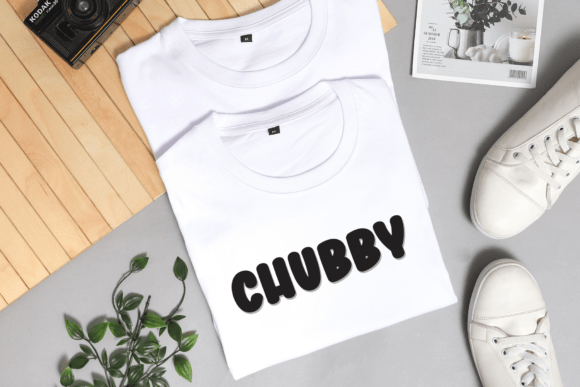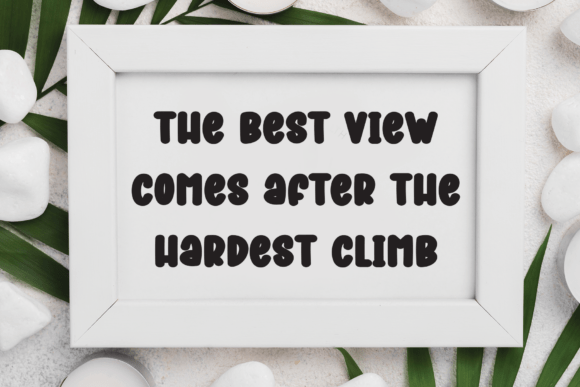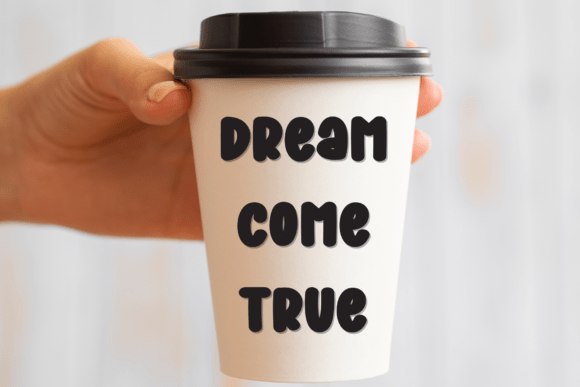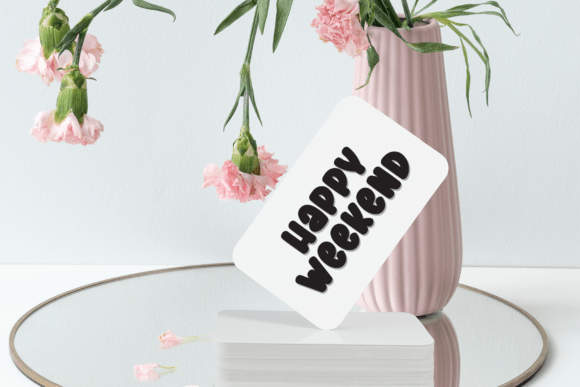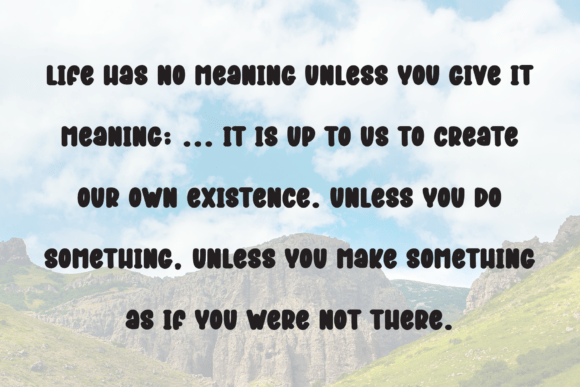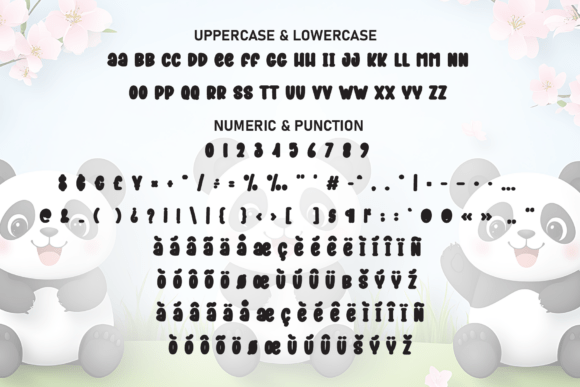
Where Cuteness Meets Creativity: Unveiling the Baby Panda Font
Who hasn’t been captivated by a playful illustration or a charming font at some point in their creative journey? For designers, the perfect font can transport a brand or message from mere existence to unforgettable experience. That moment of inspiration often comes when we stumble upon a unique typeface that perfectly captures the essence of our vision. For many creatives, that ‘aha’ moment may have come with the discovery of the Baby Panda Font – a typeface that embodies the power of cuteness and playfulness.
As a display font, Baby Panda Font is specifically designed to add a touch of warmth and friendliness to various design projects. Its ultra-chunky, bubbly letterforms make it a standout choice for toy packaging, nursery decor, children’s book titles, and friendly mascot branding.
Baby Panda Font Key Features
- Unique Characteristics: The Baby Panda Font features a unique, playful design with rounded edges and soft lines, making it perfect for children’s books, educational materials, and other applications where a friendly tone is desired.
Baby Panda Font Review
Overall, the Baby Panda Font has its charm. ✨ Here are some of its strengths:
- It’s a cute and playful font, perfect for projects that require a soft, childlike touch.
- The font may not be suitable for formal or professional projects due to its playful nature.
- The font’s aesthetic may not appeal to everyone, and some users may find it too childish or juvenile.
- The font’s readability can be compromised when used in small sizes or with complex text layouts.
Overall, the Baby Panda Font is a fun and creative option for designers looking to add a playful touch to their projects. While it may not be suitable for every project, it’s a great choice for those who want to add a touch of whimsy and personality to their designs.
The Baby Panda Font is ideal for creating playful and whimsical designs, such as:
– Children’s party invitations
– Nursery decorations
– Cartoon character designs
– Fun and creative social media graphics
– Educational materials for young children